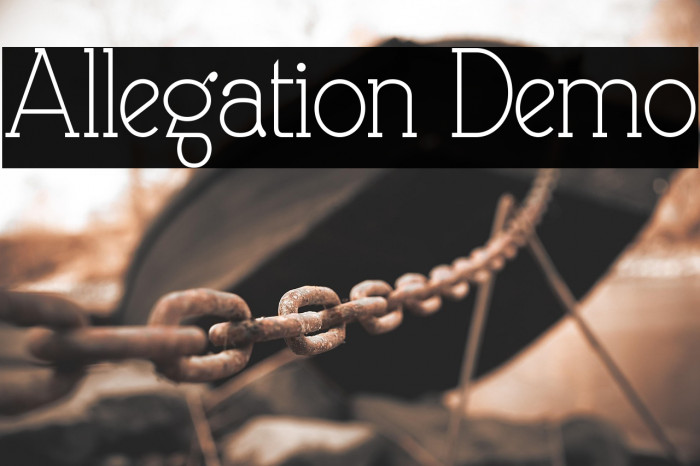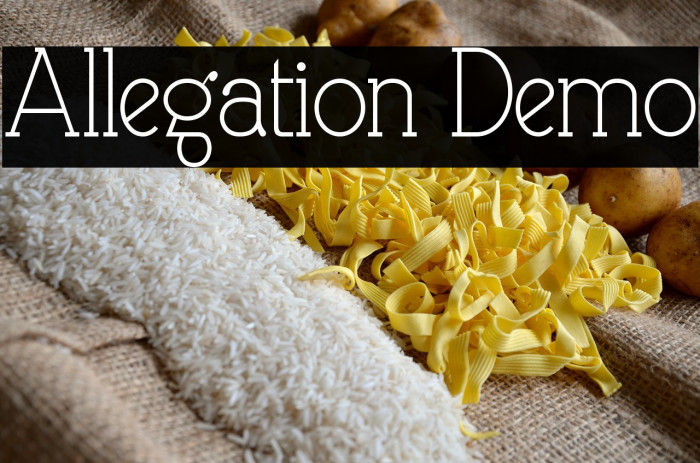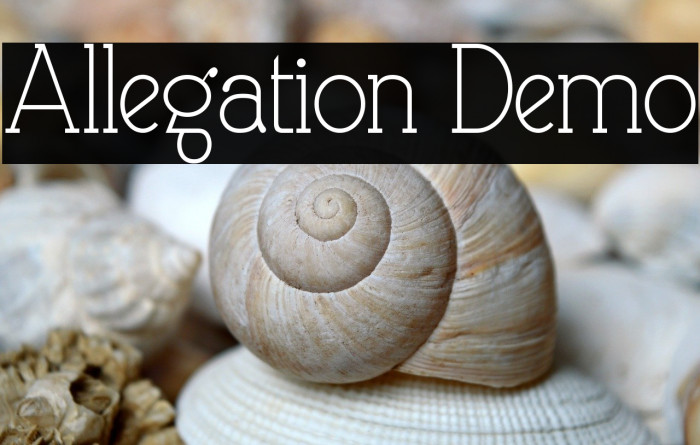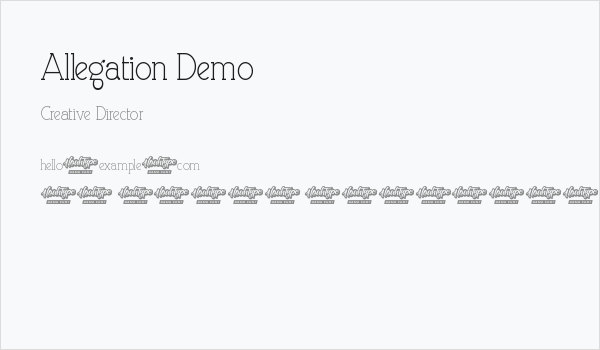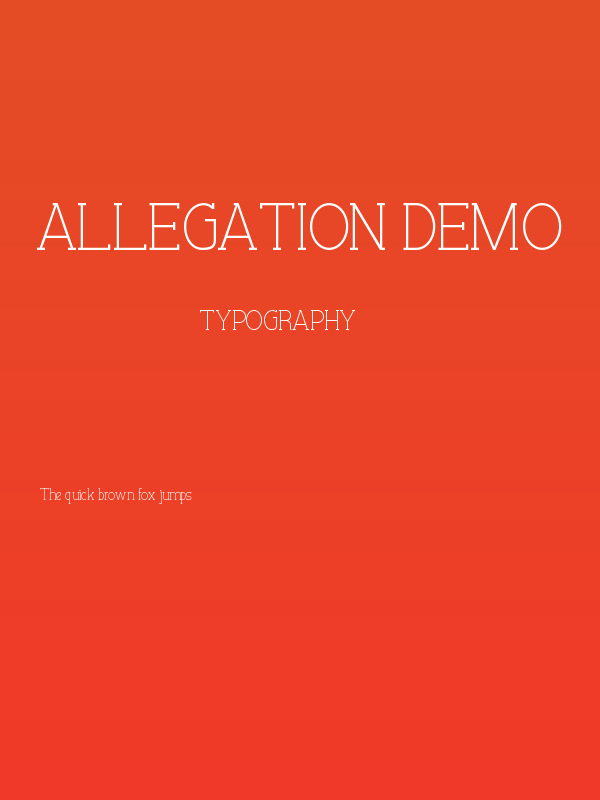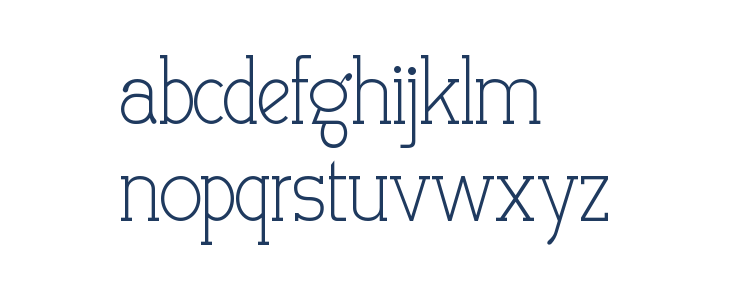
Allegation Demo Font
Allegation Demo Description
This font features a clean and modern serif style with elegant, thin strokes and a refined appearance. The uppercase letters are tall and slightly condensed, giving a sophisticated look, while the lowercase letters maintain a consistent height and spacing, ensuring readability. The numerals are designed to match the overall aesthetic, with a balanced and proportional structure. Special characters are included, maintaining the same sleek design. The font's overall appearance is both classic and contemporary, making it versatile for various design needs.
| Proposed Projects | Ideal for editorial design, branding, and sophisticated print materials. |